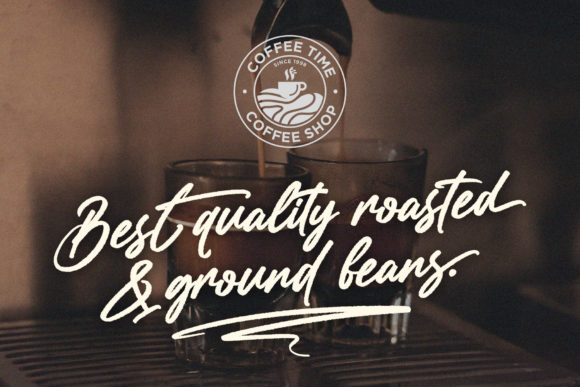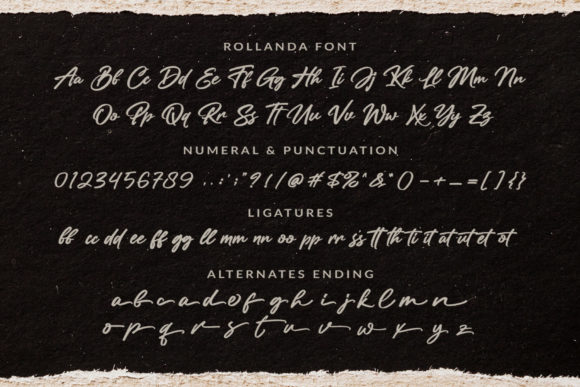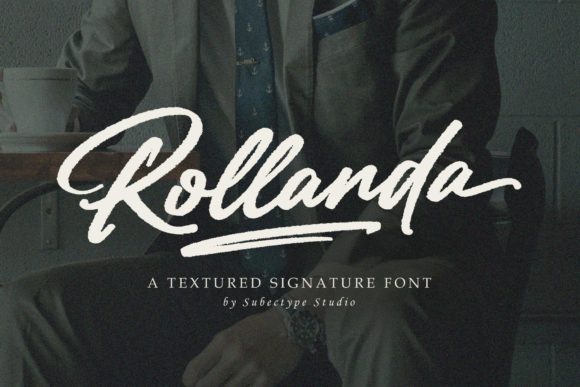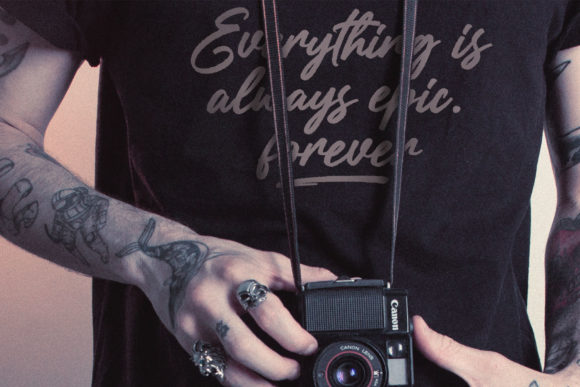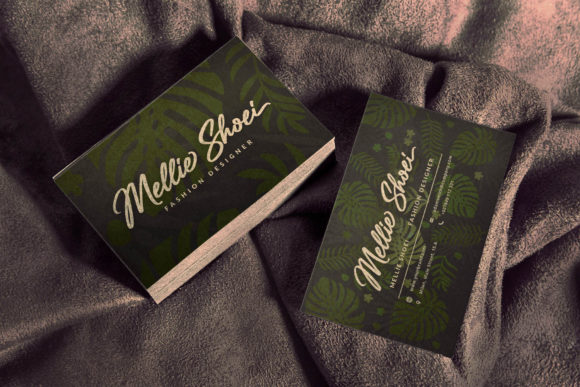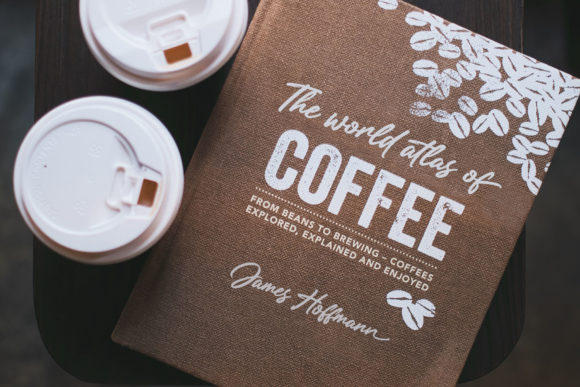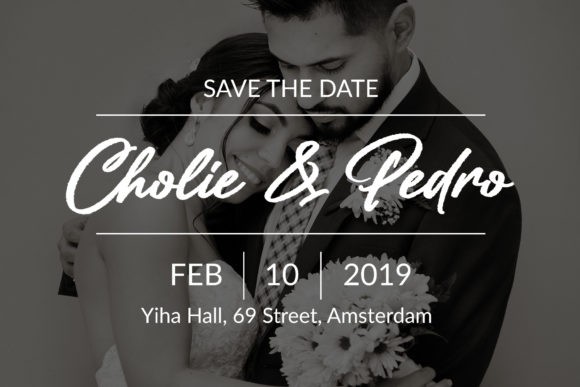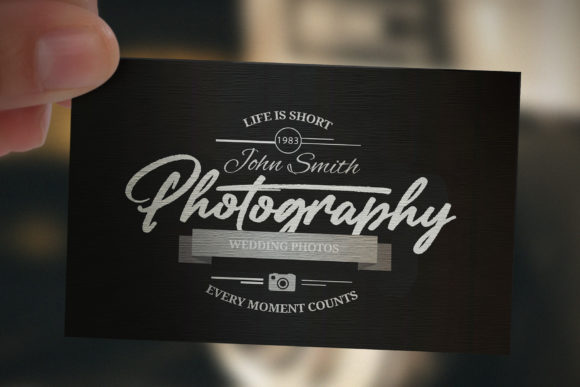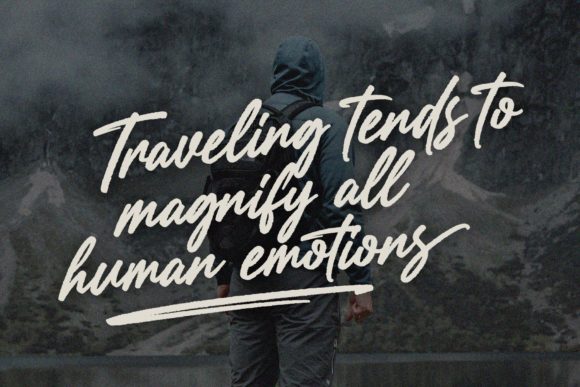
Rollanda Font
About Rollanda Font
Rollanda is a sweet and flowing handwritten font, designed with the help of a brush pen. Its unique and neat style makes it incredibly versatile, fitting a wide range of designs.